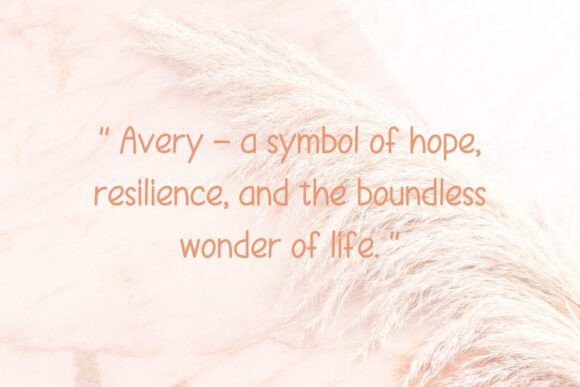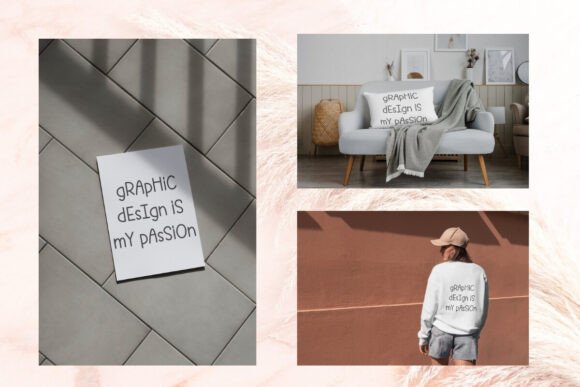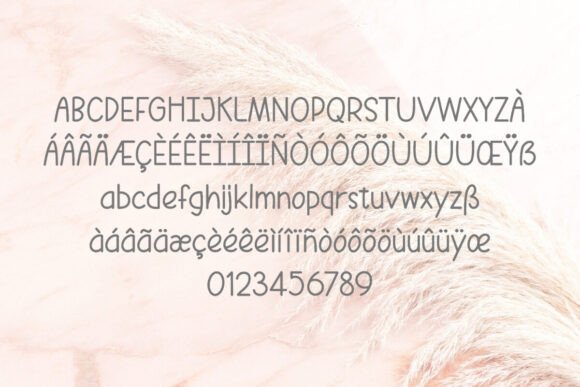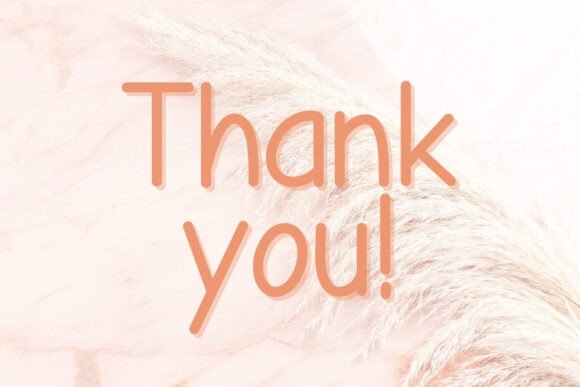
Avery Font: The Perfect Playful and Casual Handwritten Typeface for Creative Projects
In the world of typography, fonts play a crucial role in conveying the tone and personality of a design. For creative projects that require a modern and friendly vibe, the Avery font is an excellent choice. This playful and casual handwritten typeface has gained popularity among designers and crafters for its unique appeal and versatility. In this article, we’ll explore the features and benefits of the Avery font, and how it can elevate your designs to the next level.
What is Avery Font?
The Avery font is a beautifully crafted handwritten typeface that exudes a sense of playfulness and approachability. Its clean and legible design makes it perfect for a wide range of applications, from quotes and social media posts to greeting cards and logos. The font’s modern and friendly vibe is ideal for designers who want to create engaging and unique designs that resonate with their audience.
Key Features of Avery Font
- Playful and Casual: The Avery font has a playful and casual feel that makes it perfect for creative projects that require a personal touch.
- Modern and Friendly Vibe: The font’s modern and friendly vibe makes it ideal for designs that require a approachable and welcoming tone.
- Clean and Legible Design: The Avery font has a clean and legible design that ensures it stands out across various platforms.
- Versatile: The font is versatile and can be used for a wide range of applications, from inspiring messages to children’s designs.
Use Cases for Avery Font
The Avery font is perfect for a variety of design projects, including:
- Quotes and Social Media Posts: The font’s playful and casual feel makes it ideal for quotes and social media posts that require a personal touch.
- Greeting Cards and Invitations: The Avery font is perfect for greeting cards and invitations that require a friendly and approachable tone.
- Logos and Branding: The font’s modern and friendly vibe makes it ideal for logos and branding projects that require a unique and memorable design.
- Children’s Designs: The Avery font is perfect for children’s designs, such as children’s books, posters, and flyers.
Why Choose Avery Font?
There are many reasons why designers and crafters choose the Avery font for their creative projects. Here are a few:
- Unique Appeal: The Avery font has a unique appeal that sets it apart from other fonts.
- Versatility: The font is versatile and can be used for a wide range of applications.
- Easy to Read: The Avery font has a clean and legible design that makes it easy to read.
- Personal and Welcoming Touch: The font adds a personal and welcoming touch to designs, making it perfect for personal branding and commercial projects.
In conclusion, the Avery font is a playful and casual handwritten typeface that is perfect for creative projects. Its modern and friendly vibe, clean and legible design, and versatility make it an excellent choice for designers and crafters. Whether you’re working on personal branding or commercial projects, the Avery font will give your designs a personal and welcoming touch. Download it today to add charm to your creations!